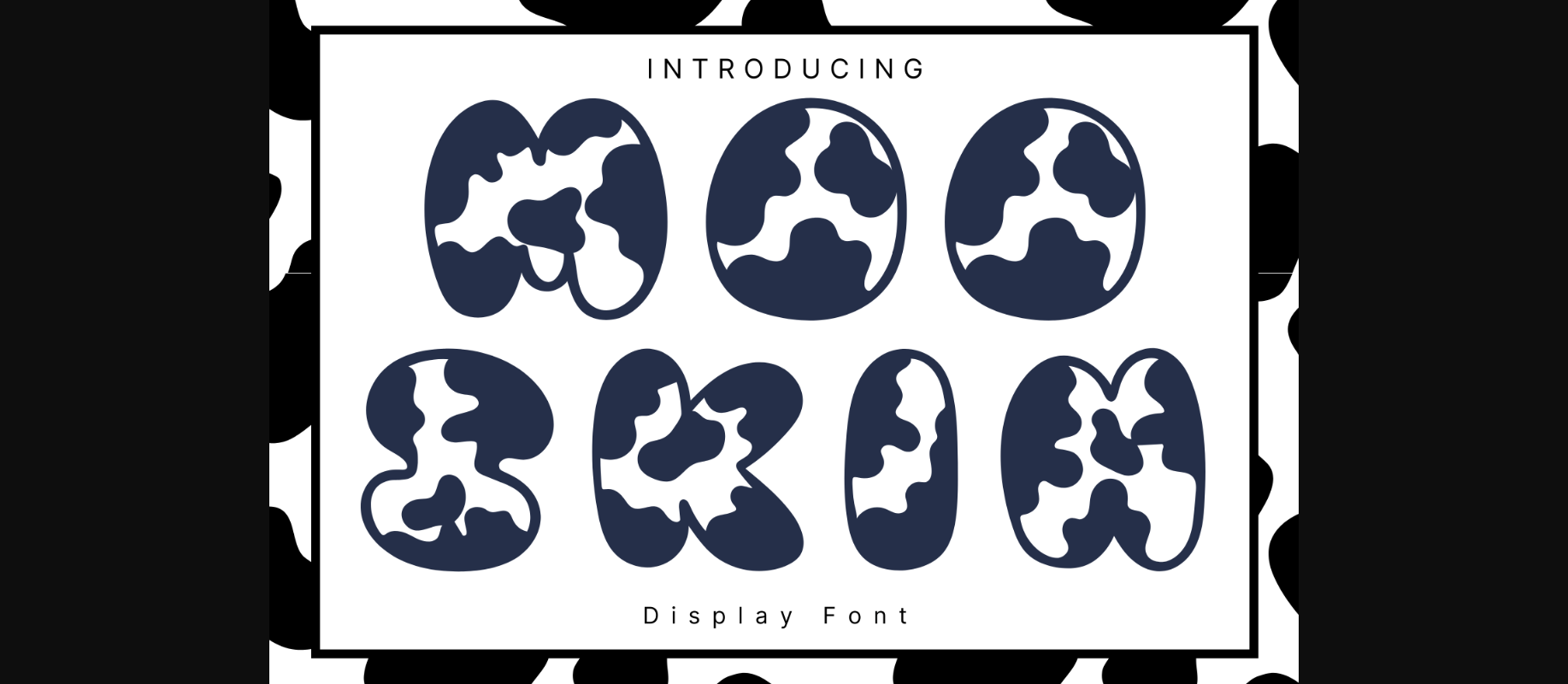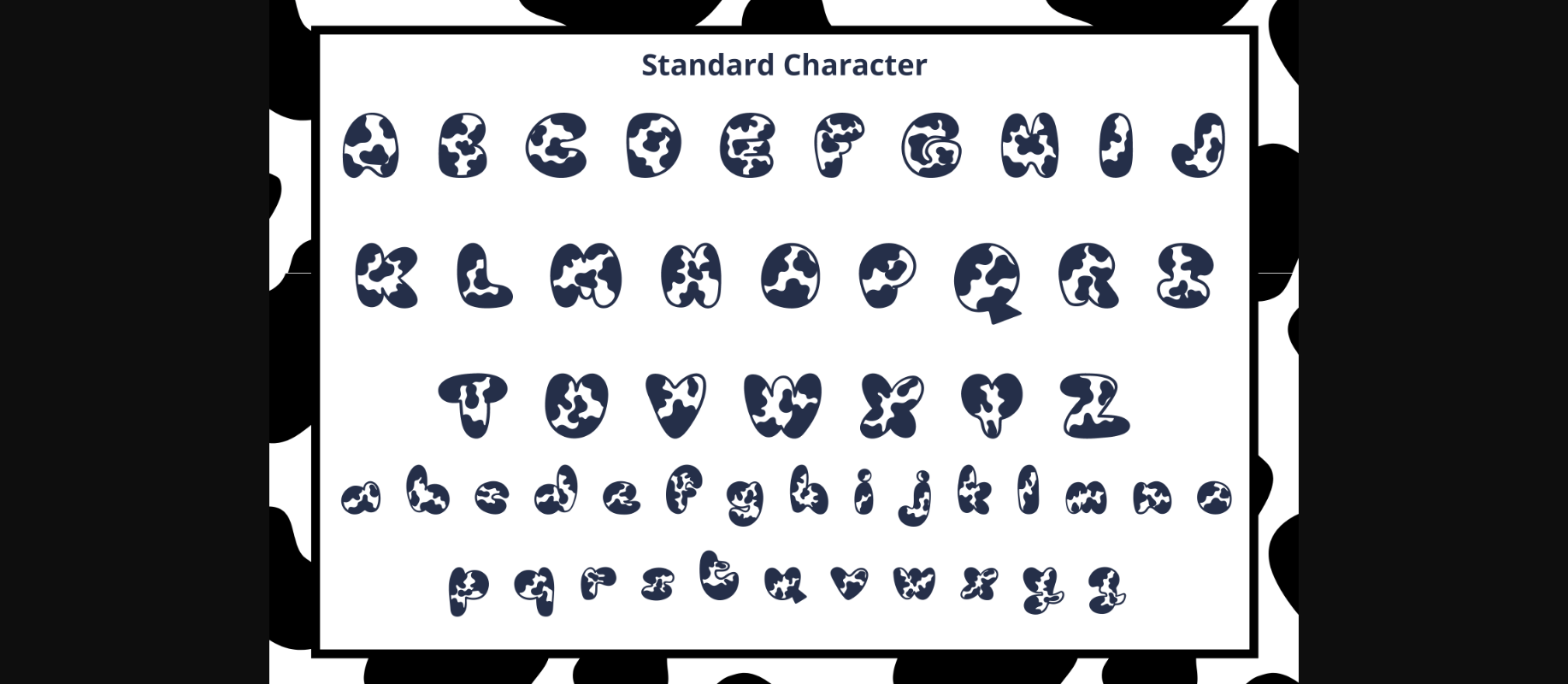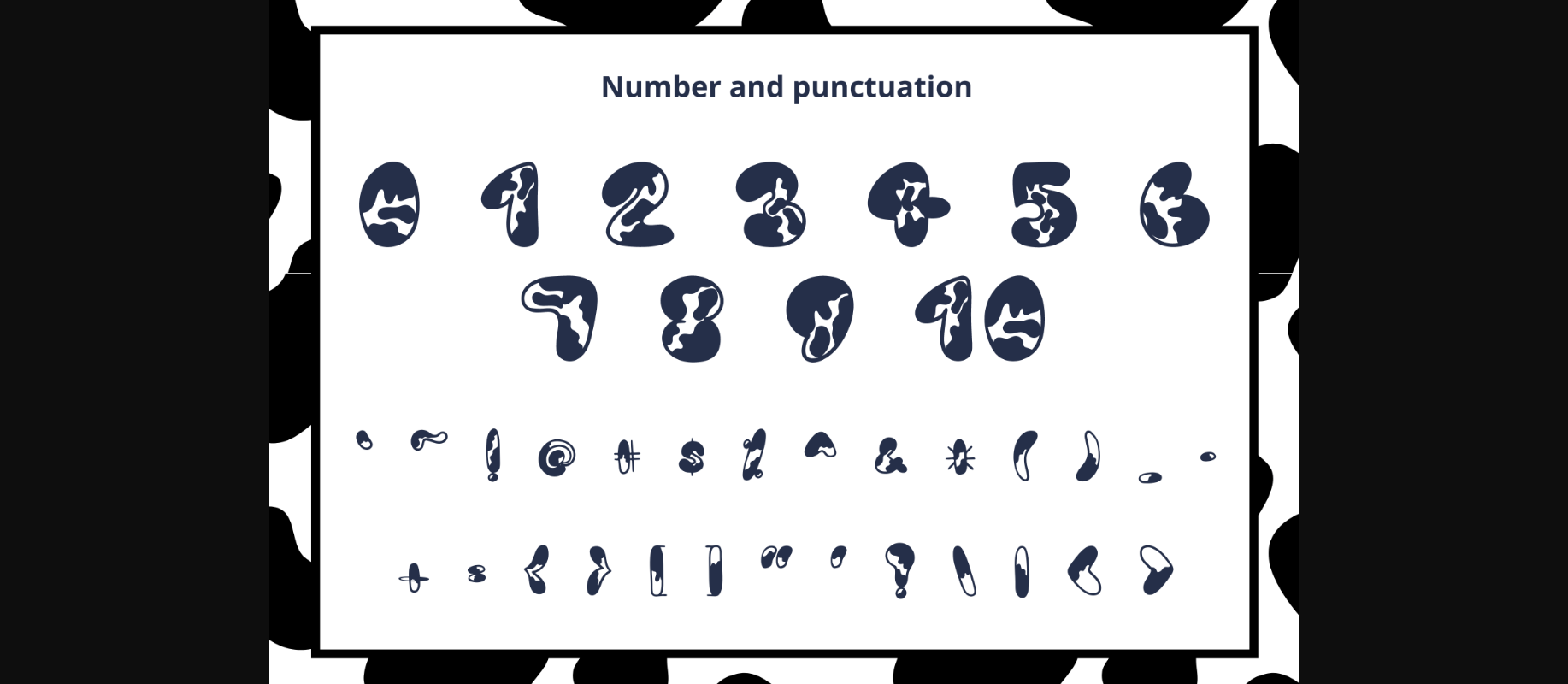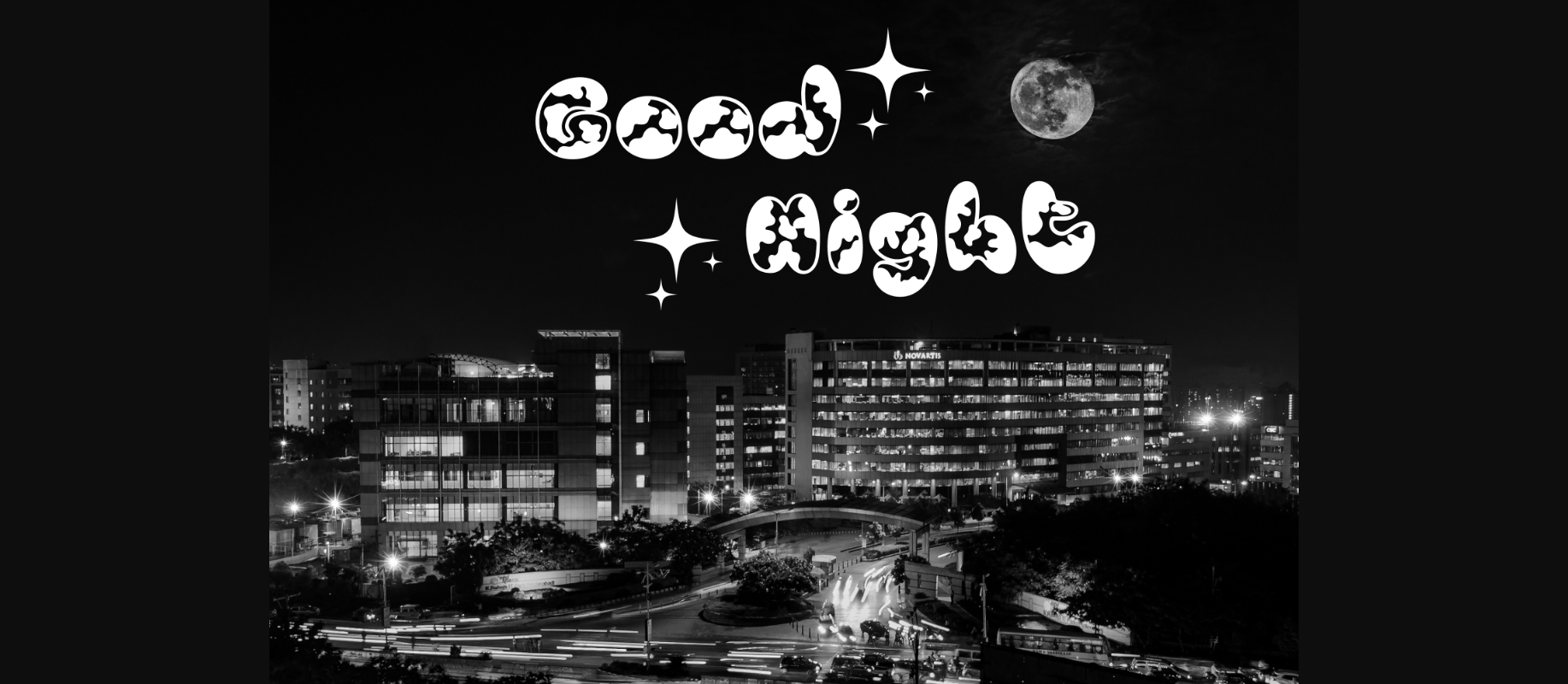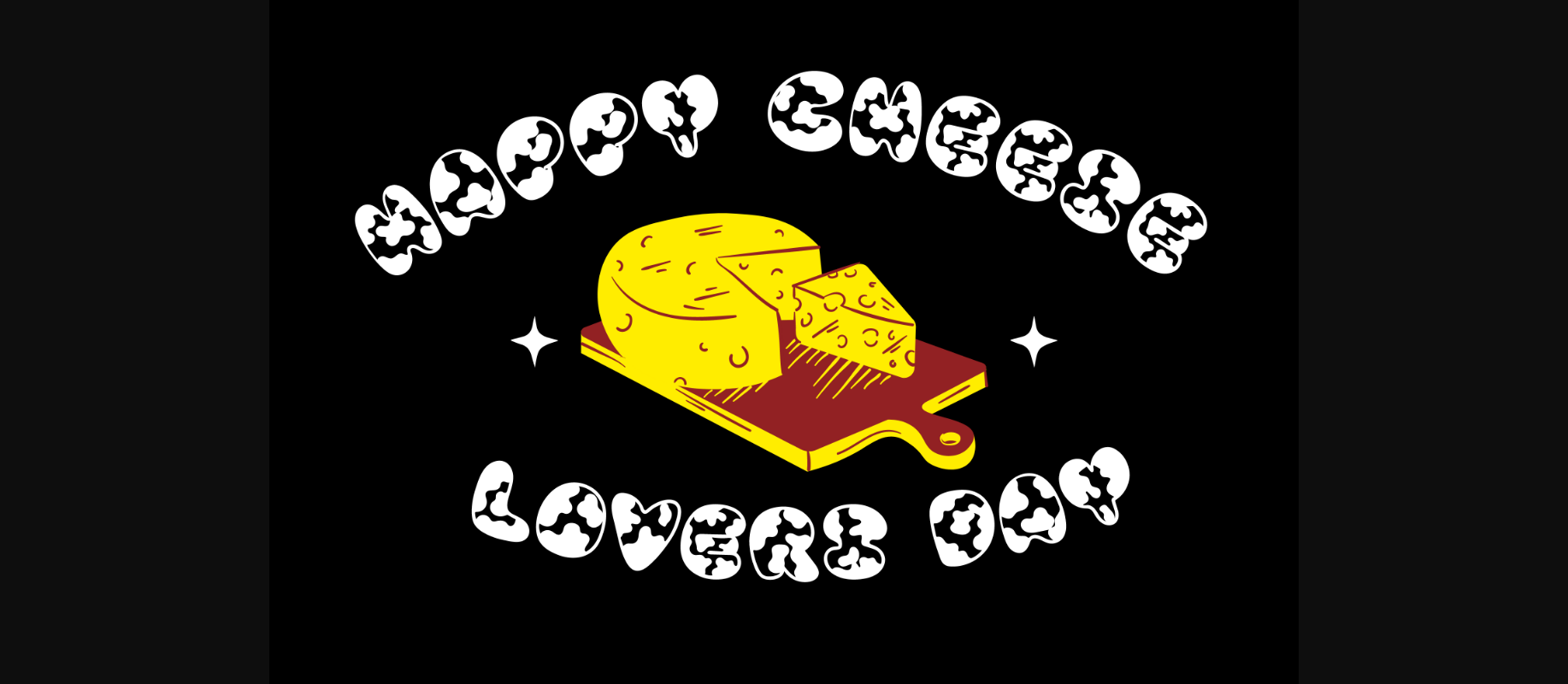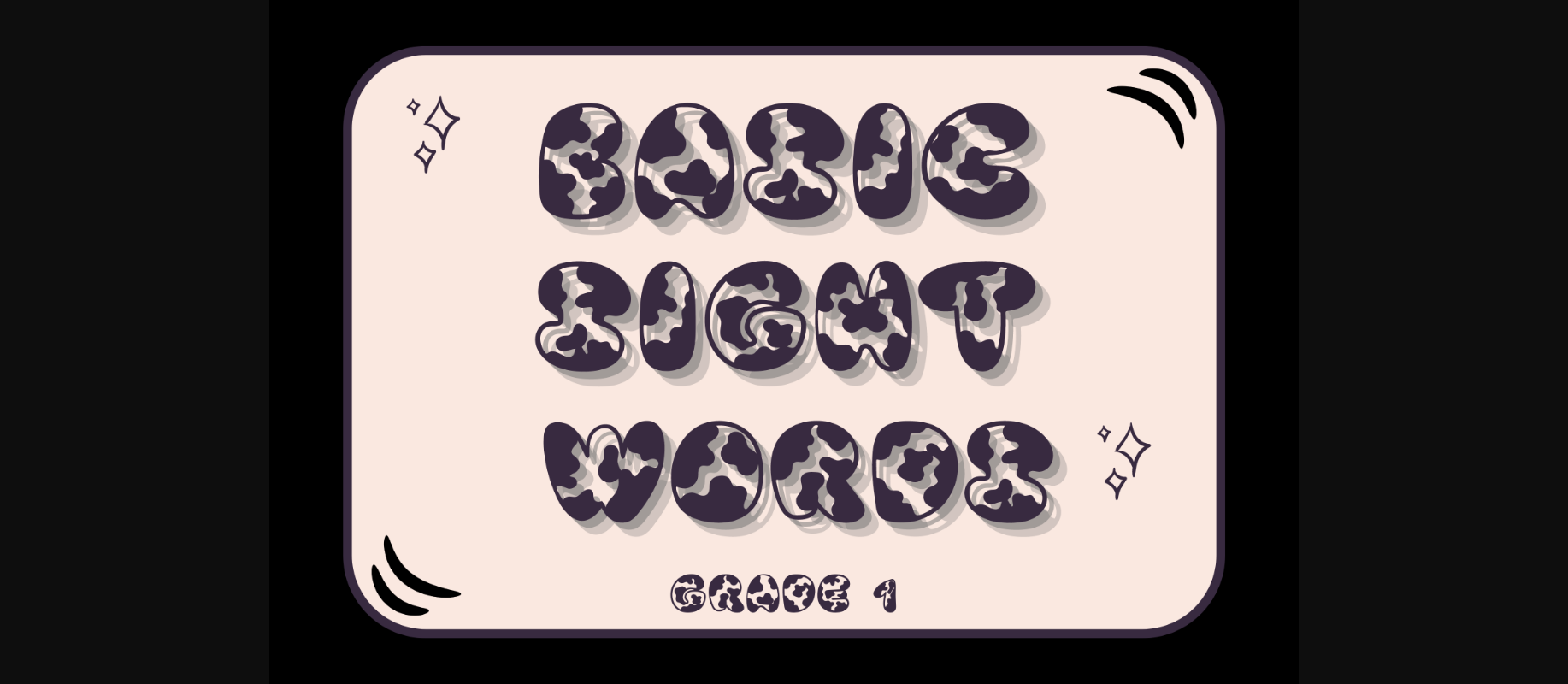
About Moo Skin Font
Moo Skin is a whimsical and fun decorative font. It can easily be matched to an incredibly large set of projects, so add it to your creative ideas and notice how it makes them stand out!